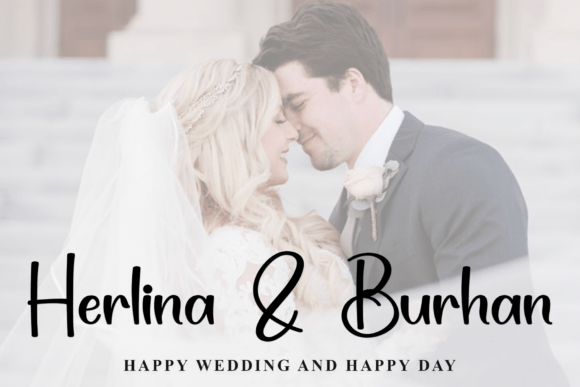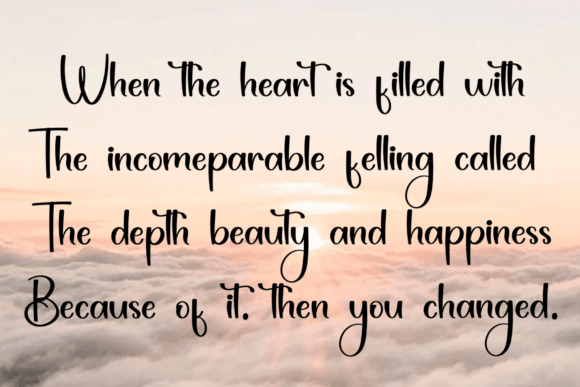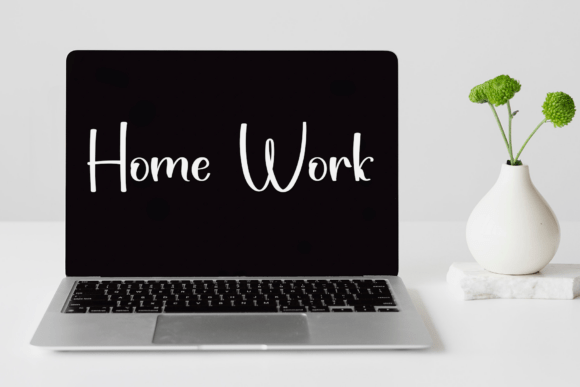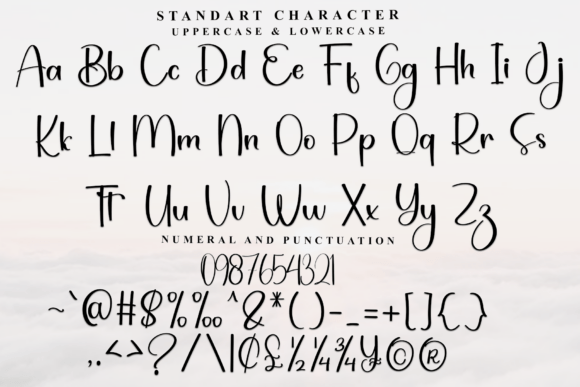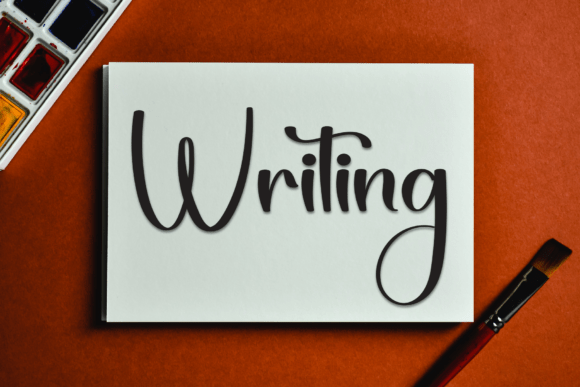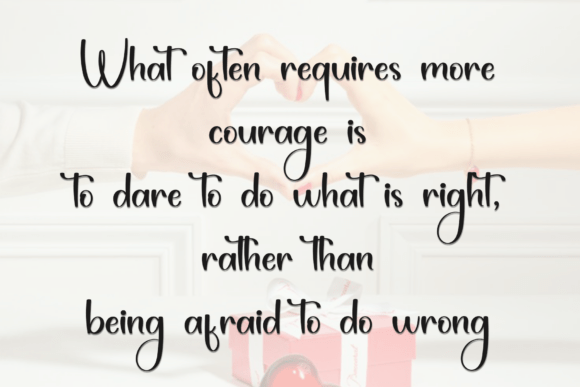
The Quest for the Perfect Font: Discovering Drawing Handmade
Have you ever been in the middle of a design project, and suddenly, you realize that the font you’ve chosen just isn’t working? I recall a particularly frustrating experience when I was working on a client’s branding project. They wanted a font that was both elegant and playful, but everything I tried seemed to fall flat. That’s when I stumbled upon Drawing Handmade, a beautiful and eye-catching font that has since become a staple in my design toolkit.
What Makes Drawing Handmade Special?
Drawing Handmade is a unique font designed with a soft, distinctive touch. Its strokes give it a special character, making it meaningful and versatile for future use. With various characters, it’s perfect for design projects, crafts, and other creative works. Whether you’re a designer, crafter, or creative hobbyist, this font is sure to enhance your designs and appeal to a wide range of audiences.
- ✨ Unique and distinctive strokes that add a personal touch to any design
- 💫 Perfect for design projects, crafts, and other creative works
- 📚 Includes various characters and glyphs to add depth and interest to your designs
While Drawing Handmade is an excellent font, there are a few things to keep in mind. ⚠️ Some users may find that the font can be a bit finicky when used in certain applications, and it may not work well with very small font sizes. However, these limitations are relatively minor and can be easily worked around.
The Story Behind Drawing Handmade
Drawing Handmade was created by a talented font designer who wanted to create a font that was both unique and versatile. The designer drew inspiration from traditional handwriting and lettering techniques to create a font that was both elegant and playful. The result is a font that’s perfect for a wide range of design projects, from branding and advertising to crafts and DIY projects.
Q: What type of projects is Drawing Handmade best suited for?
A: Drawing Handmade is perfect for design projects, crafts, and other creative works. It’s ideal for designs that require a personal touch, such as branding, advertising, and packaging.